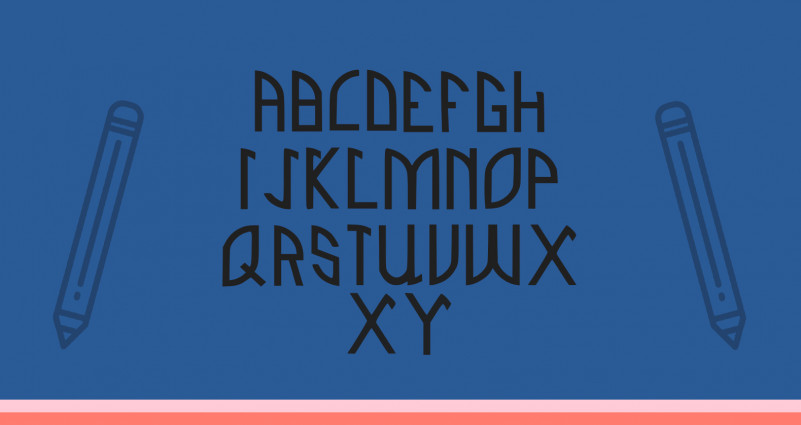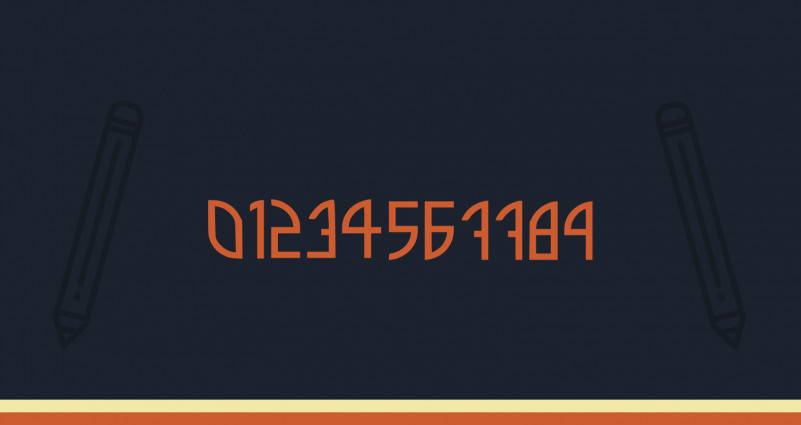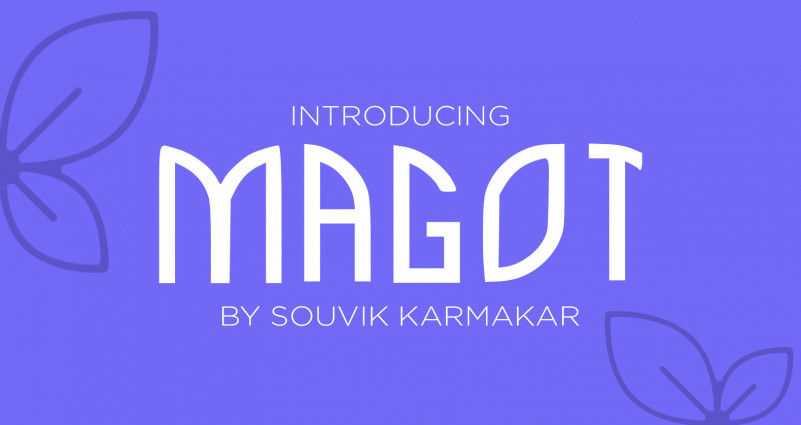
Magot Font
MAGOT CAPS FONT
A new display font typeface. This is an excellent combination of smooth shapes and medium weight. It will fit perfectly into any project, both in a modern style and in a vintage style.
Introducing Magot Display Font. It’s a gorgeous, timey display font with a modern feel! Inspired by the industrial revolution, It will bring back the early days of the 20th century. This collection comes in two styles: One and Two. It is possible to be paired perfectly when used together.
Perfectly suited for any display use. It could easily work for design product names, posters, signage, packages, logos, labels, and eye-pleasing typographic designs and more.